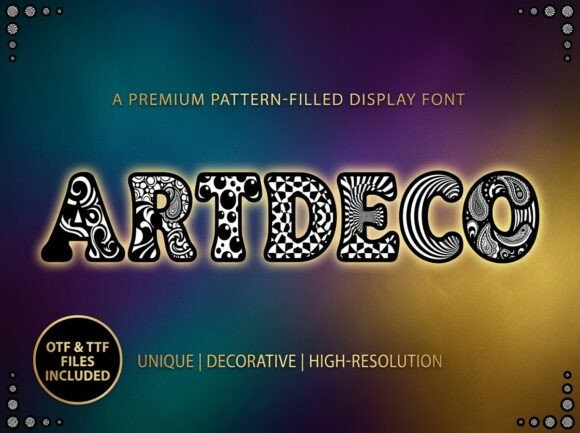
Unleash Your Creativity with Artdeco Arto: The Ultimate Maximalist Display Font
Are you tired of traditional fonts that lack personality and flair? Look no further than Artdeco Arto, a revolutionary display font that embodies the spirit of creative freedom. This bold, maximalist typeface is designed to turn words into an explosive, artistic collage, making it perfect for designers and crafters who want to make a statement.
A Font Like No Other
Artdeco Arto breaks away from the monotony of traditional fonts by filling its chunky silhouettes with an eclectic mix of mesmerizing optical illusions, checkerboards, groovy waves, paisley whorls, and abstract botanical doodles. Every single letter is its own canvas, allowing you to express yourself in a unique and captivating way. Whether you’re designing a poster, packaging, or merchandise, Artdeco Arto is the perfect asset to add a touch of personality and whimsy to your project.
Artdeco Arto is engineered entirely for head-turning headers and avant-garde designs, making it an ideal choice for a wide range of applications. Some of the design possibilities include:
- Retro-pop packaging: Add a blast of color and energy to your product packaging with Artdeco Arto’s bold, playful design.
- Statement poster designs: Create eye-catching posters that demand attention with Artdeco Arto’s mesmerizing patterns and optical illusions.
- Artistic merchandise: Design unique and eye-catching merchandise, such as t-shirts, stickers, and tote bags, that showcase your creativity and style.
- Festival branding: Create a memorable and Instagram-worthy brand identity for your festival or event with Artdeco Arto’s bold, colorful design.
- Contemporary streetwear graphics: Add a touch of high-end fashion to your streetwear designs with Artdeco Arto’s bold, artistic style.
What Makes Artdeco Arto So Special?
So, what sets Artdeco Arto apart from other fonts? Here are just a few of its unique features:
- Maximalist design: Artdeco Arto is a true maximalist font, with intricate patterns and designs that will keep you and your audience engaged.
- Eclectic mix of patterns: From optical illusions to paisley whorls, Artdeco Arto features a diverse range of patterns that will add visual interest to any design.
- Chunky silhouettes: Artdeco Arto’s bold, chunky silhouettes make it perfect for headlines and titles that demand attention.
- Hand-crafted with love: Artdeco Arto is a hand-crafted font, made with love and care to ensure that every letter is a work of art.
Get Ready to Unleash Your Creativity
Artdeco Arto is more than just a font – it’s a movement. It’s a call to arms to designers and crafters everywhere to think outside the box and push the boundaries of creativity. With its bold, maximalist design and eclectic mix of patterns, Artdeco Arto is the perfect asset for anyone who wants to make a statement. So join the movement and download Artdeco Arto today.